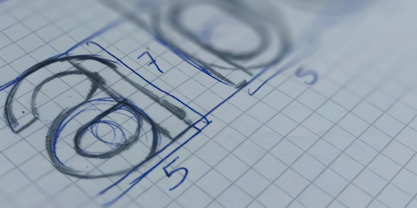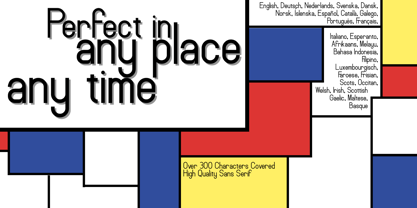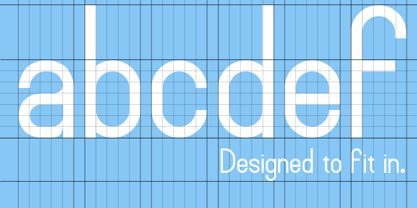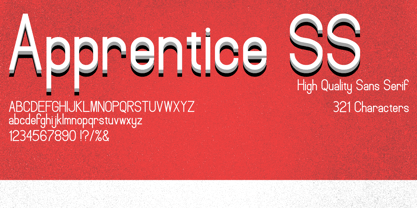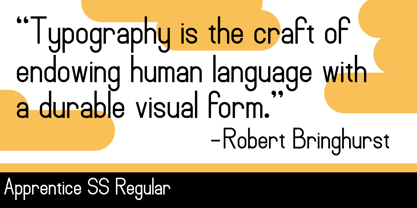
Apprentice SS
by RedWaffles
The Apprentice SS Font Family was designed by Berke Zeytünlüoğlu and published by RedWaffles. Apprentice SS contains 1 styles. More about this family
Apprentice SS is a relaxed, modern and sleek Sans Serif font designed for any use case where you need something legible, minimal while also not being boring. It differs itself with its grid-designed conformity and flow. The simplicity allows it to be used in any area without breaking form or comfort, but maintaining style and modernity. Each character falls into place within whatever you write.
About RedWaffles
RedWaffles is a unique foundry founded by a passionate graphic designer from Turkey, dedicated to contributing to the design world. As a solo creator, I have ventured into font making to expand my skill set and address gaps I identified in typography while designing posters, badges, and other creative works. Each font is crafted with care, reflecting my commitment to quality and innovation in design. I hope you enjoy exploring the distinctive styles and features that RedWaffles has to offer.